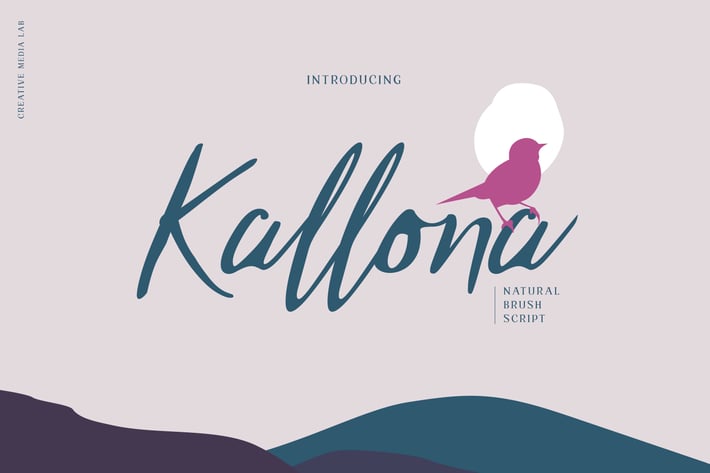
Kallona - Natural Brush Script font
Introducing Kallona, a natural brush script font.
Perfect for labels, quotes, Headers, posters, DIY projects, branding, packaging, greeting cards, websites, photography overlays, signs, wallpaper, cutting, hang tags, brand, logo, and much more!